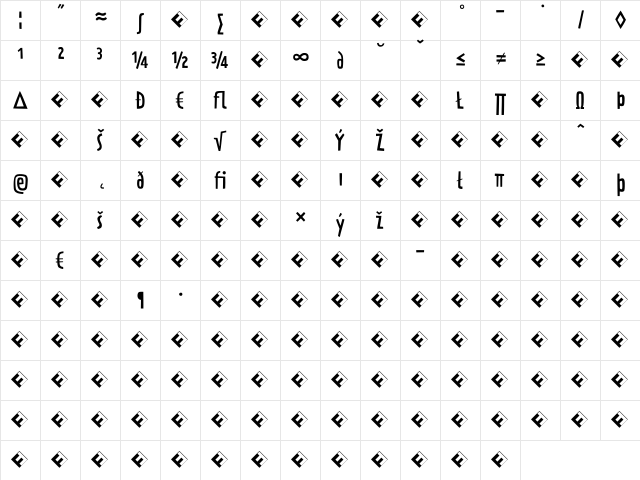
PraterBlockTwo-FillExpert Regular
| Foundry | Steffen Sauerteig, Henning Wagenbreth, published by Fontshop International for the FontFont library |
Design Context for PraterBlockTwo-FillExpert Typeface
PraterBlockTwo-FillExpert takes a measured approach to typography — its balanced proportions and neutral character make it a reliable workhorse for both digital and print work.